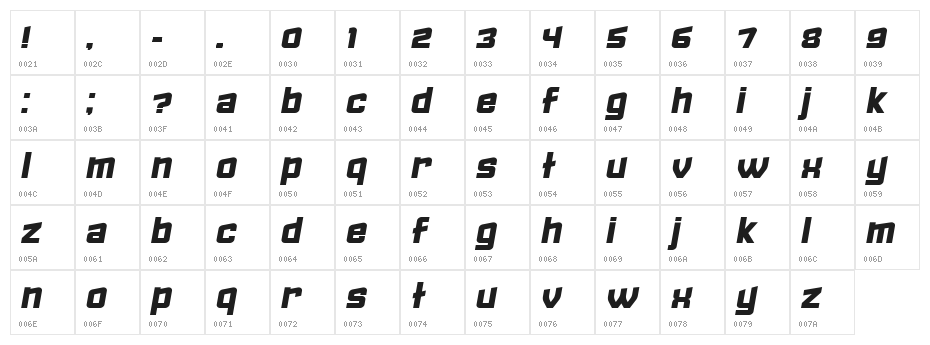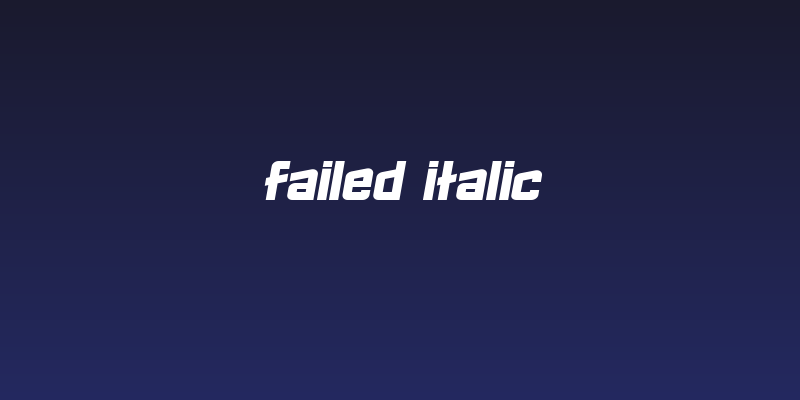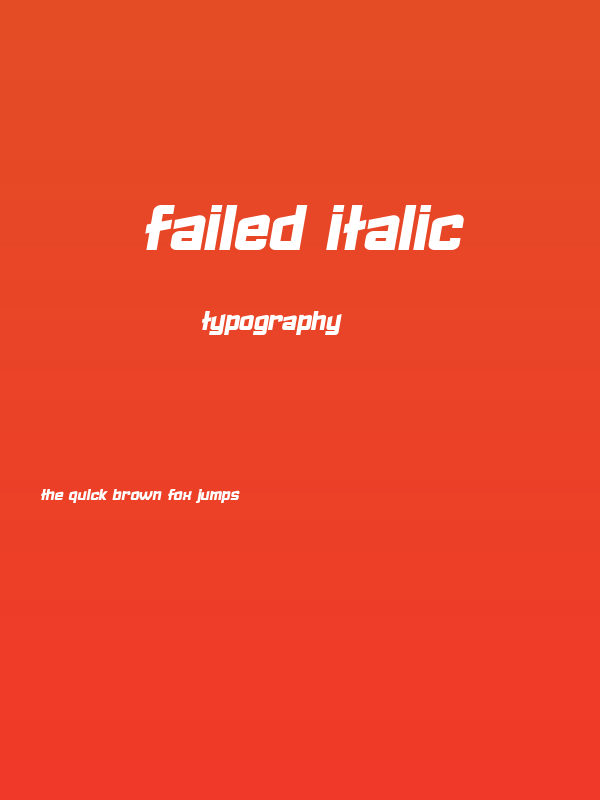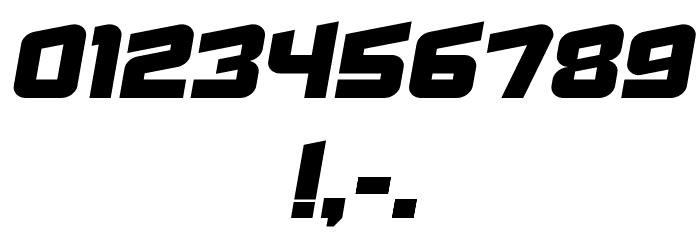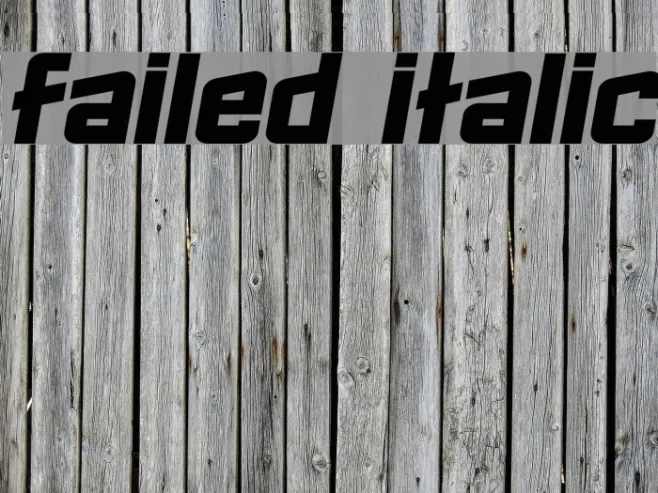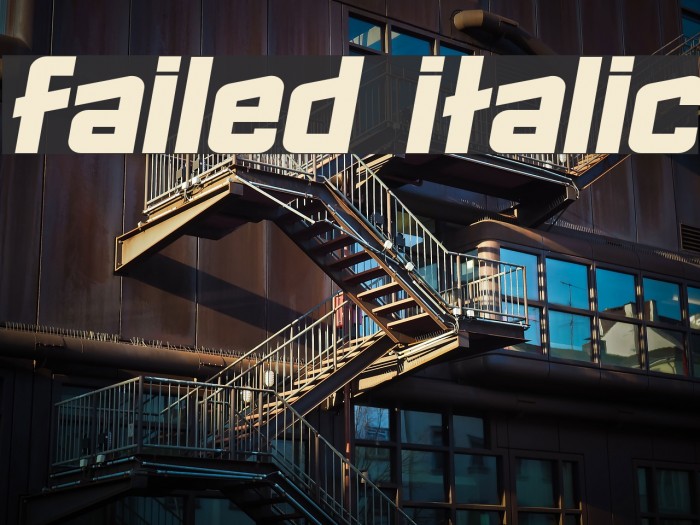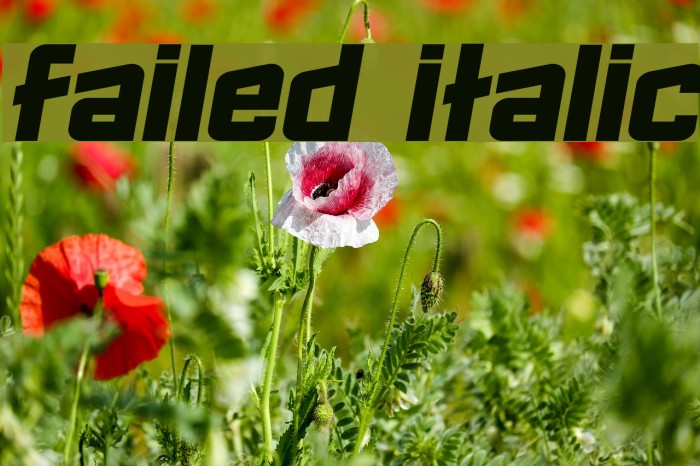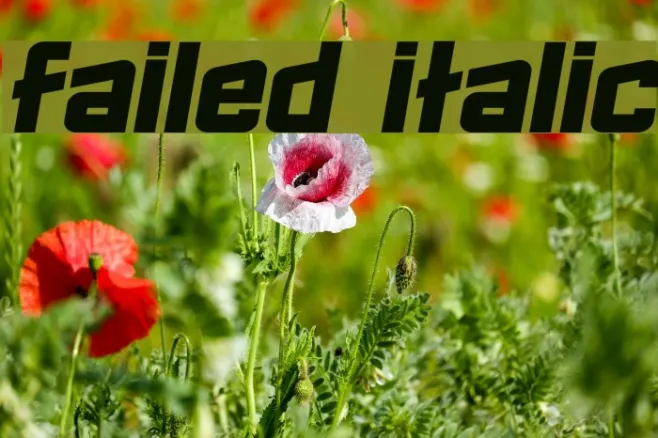
Failed Italic Font
Failed Italic Description
This font features a bold, italicized style with a modern and dynamic appearance. The characters are slightly slanted, giving a sense of motion and energy. The strokes are thick and consistent, providing a strong visual impact. The design is clean and geometric, with sharp angles and straight lines that create a futuristic feel. The numbers and special characters maintain the same bold and italicized characteristics, ensuring uniformity across all glyphs. This font is highly legible and stands out in any context, making it suitable for attention-grabbing designs.
| Proposed Projects | Ideal for sports branding, dynamic posters, modern advertisements, and tech-related designs. |